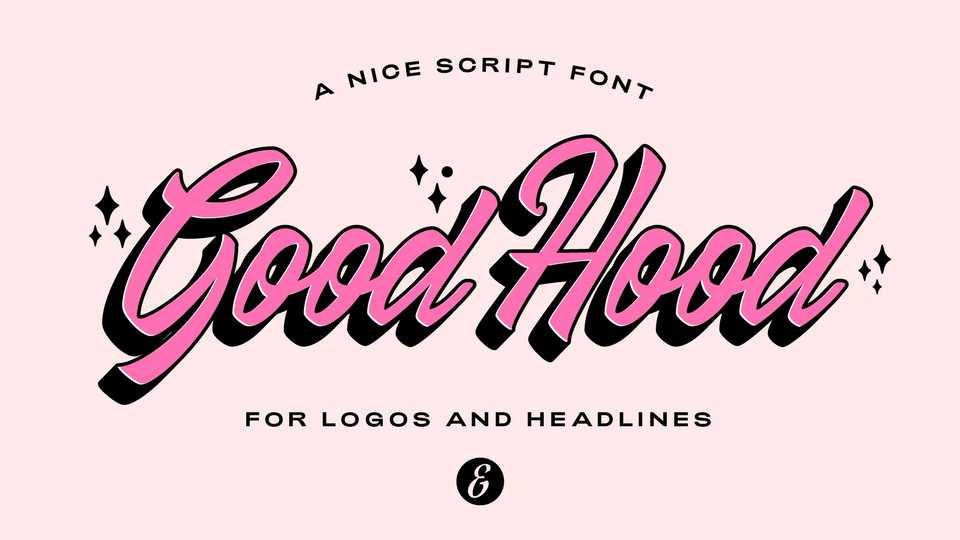
Download GoodHood font, a quirky brush script with distinctive details that make it a perfect fit for logos and headlines. It brings back the good old vibes of the ’90s with retro signs influence and a subtle graffiti twist.